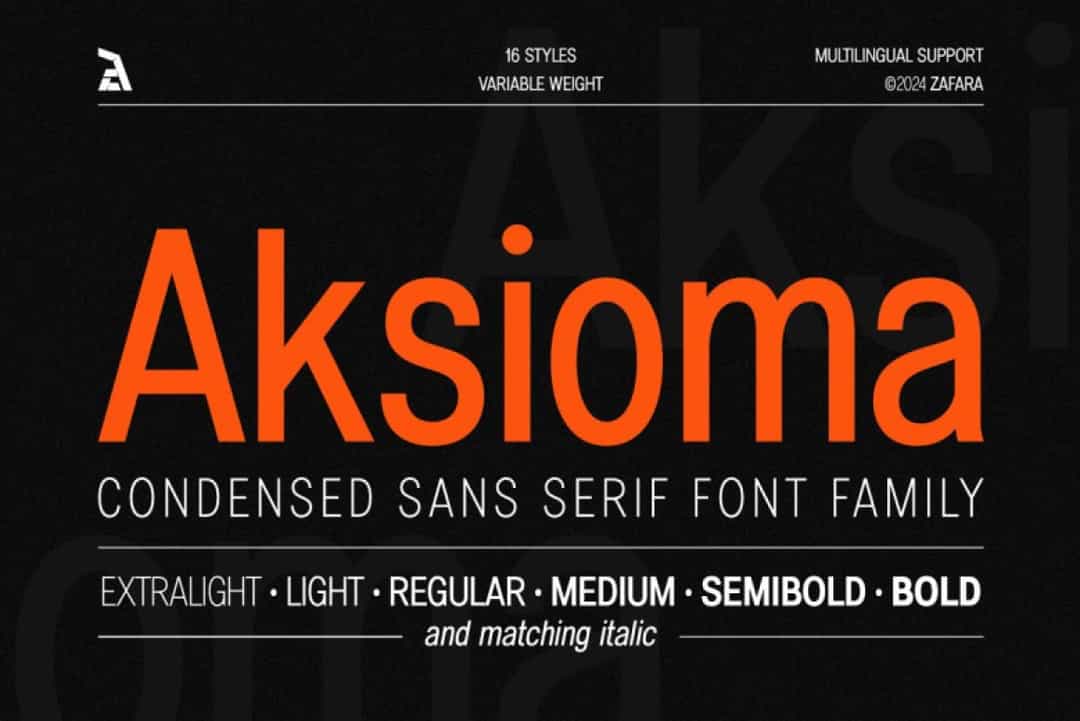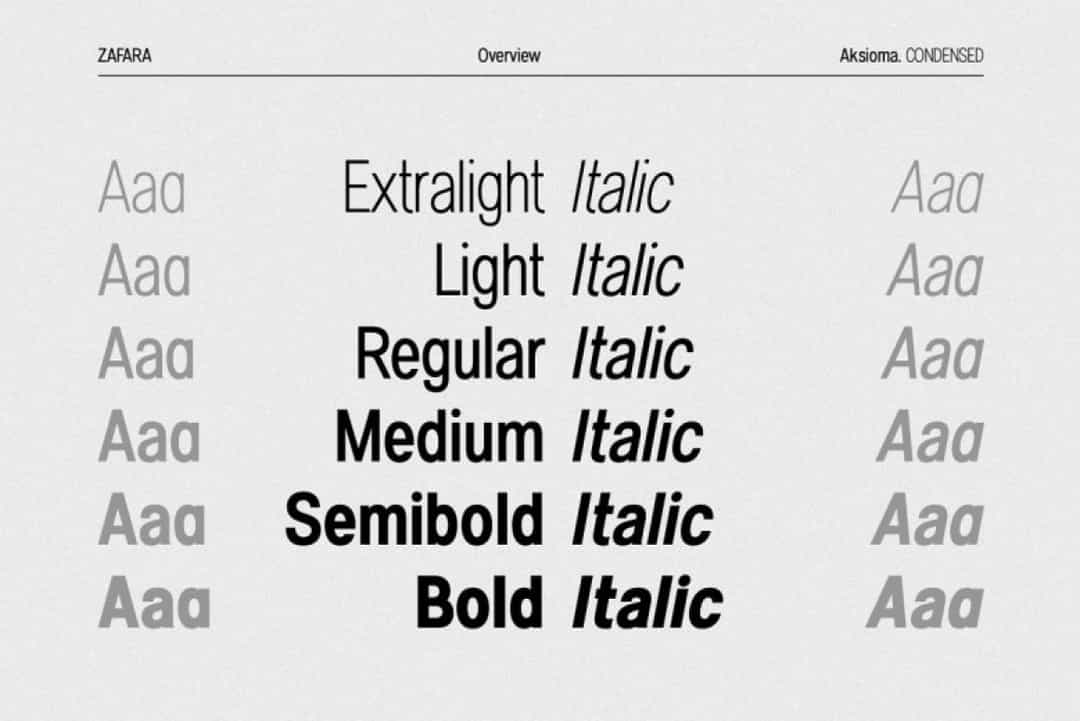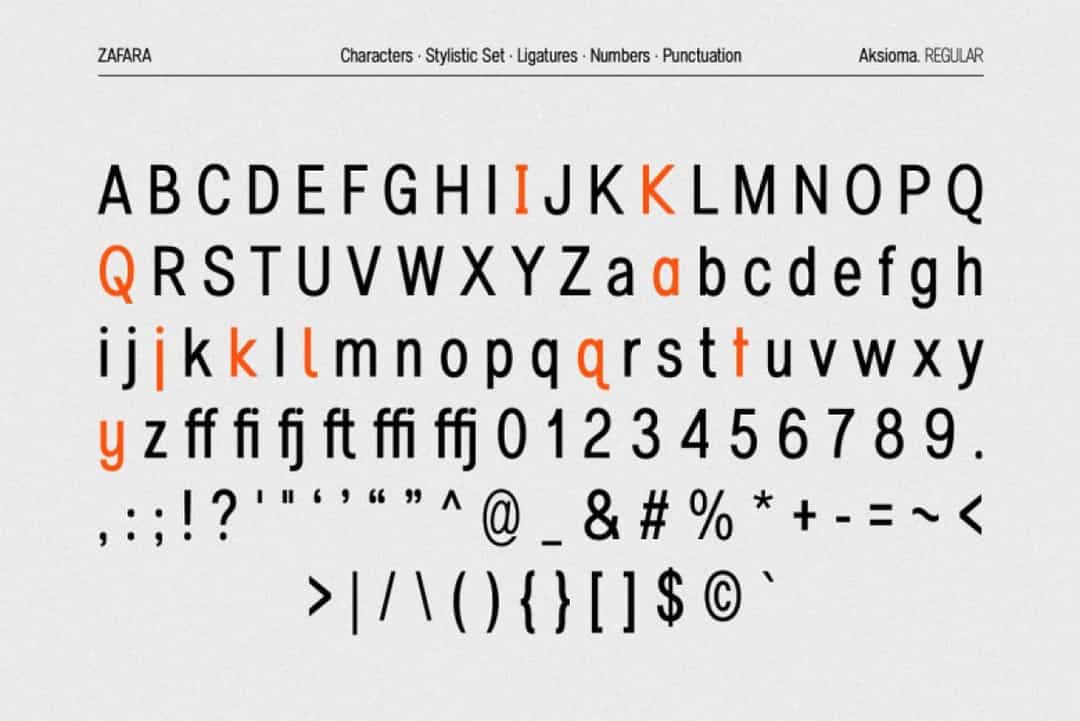
Aksioma can be described as an enlarged sans serif font family with a modern and simple design. Typically used to reduce space constraints while providing distinct visual impact; its popular uses include titles on bookshelves, posters brochures websites logos business cards or any other requirements to increase visual impact in designs.